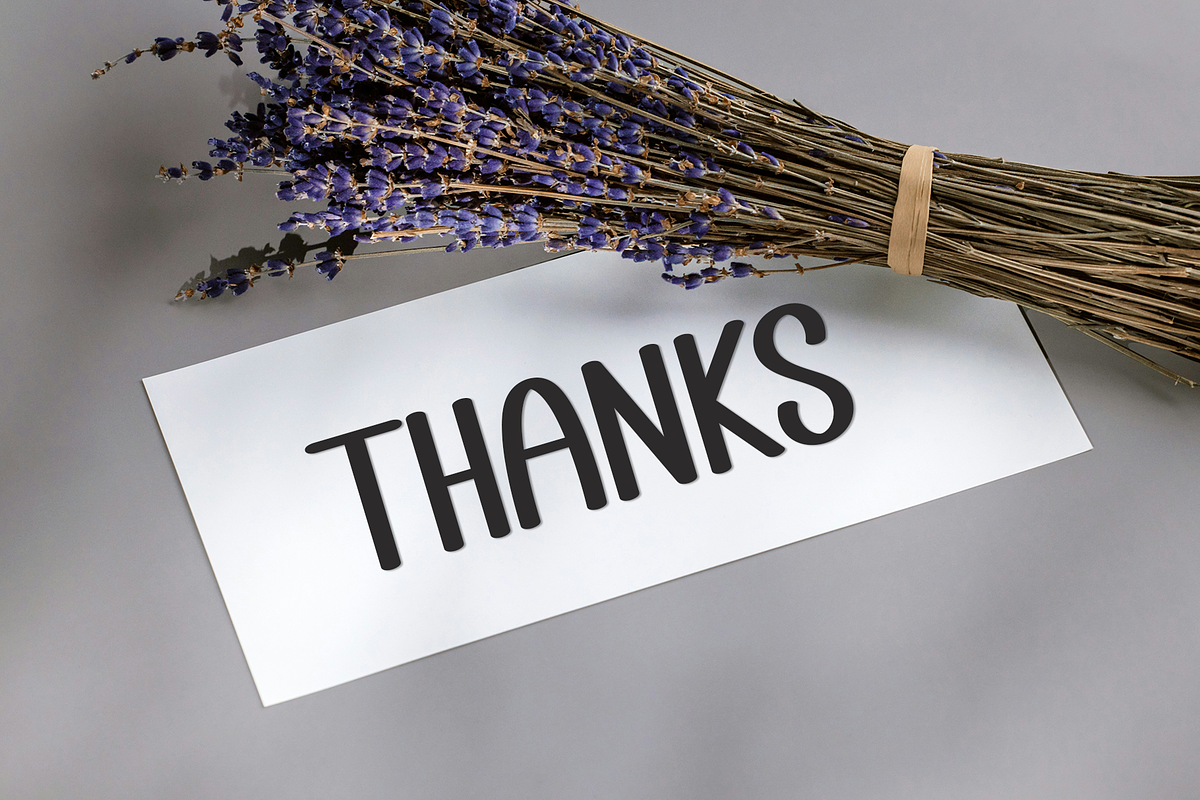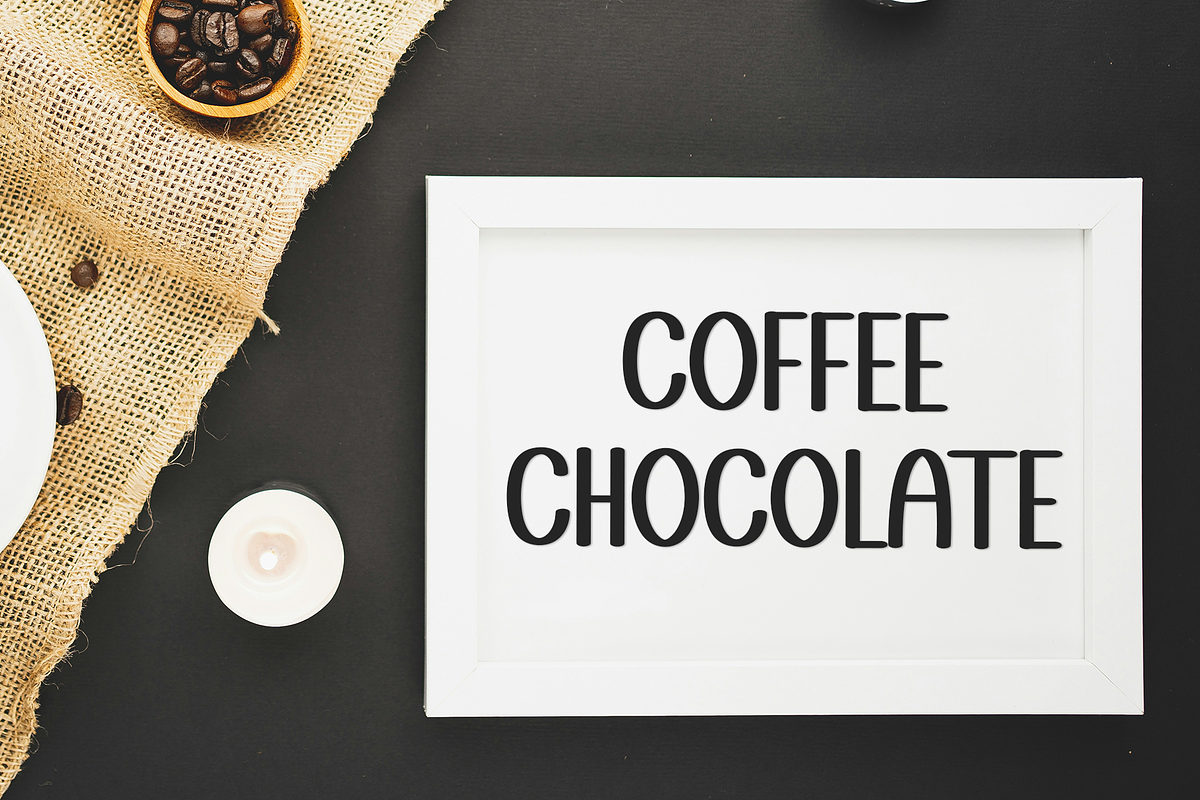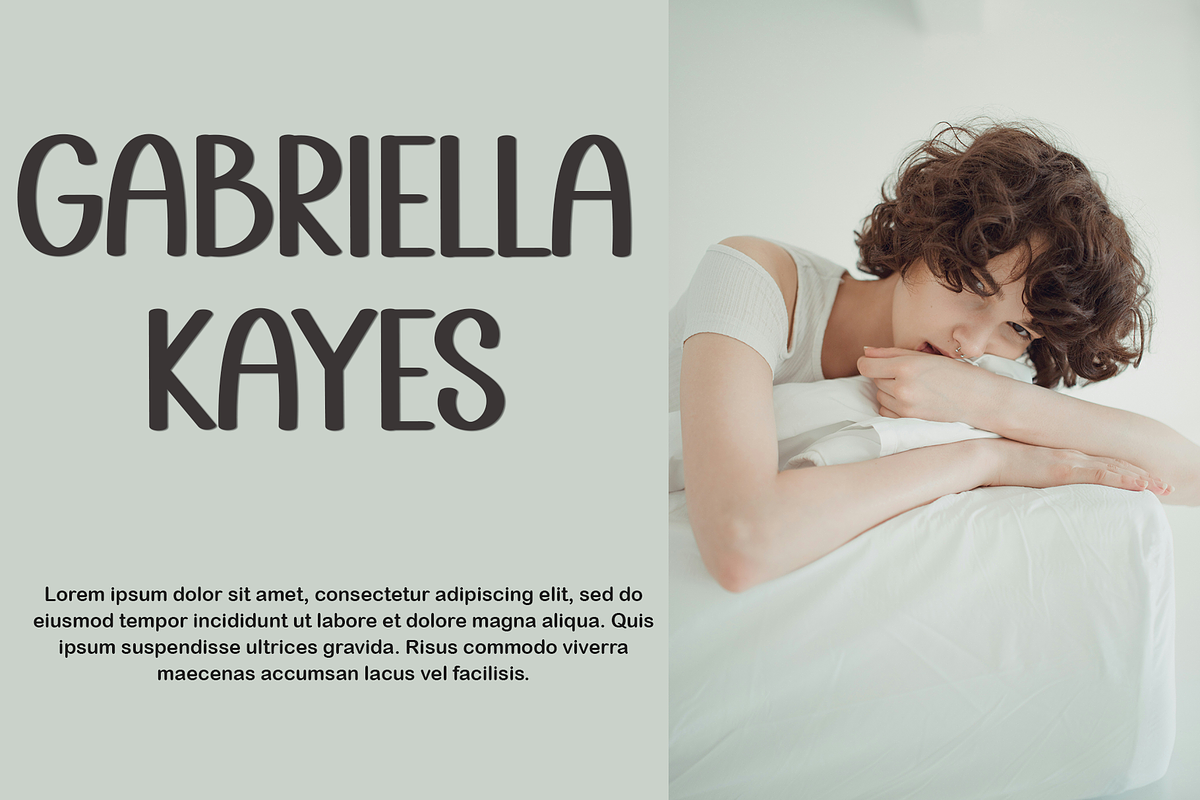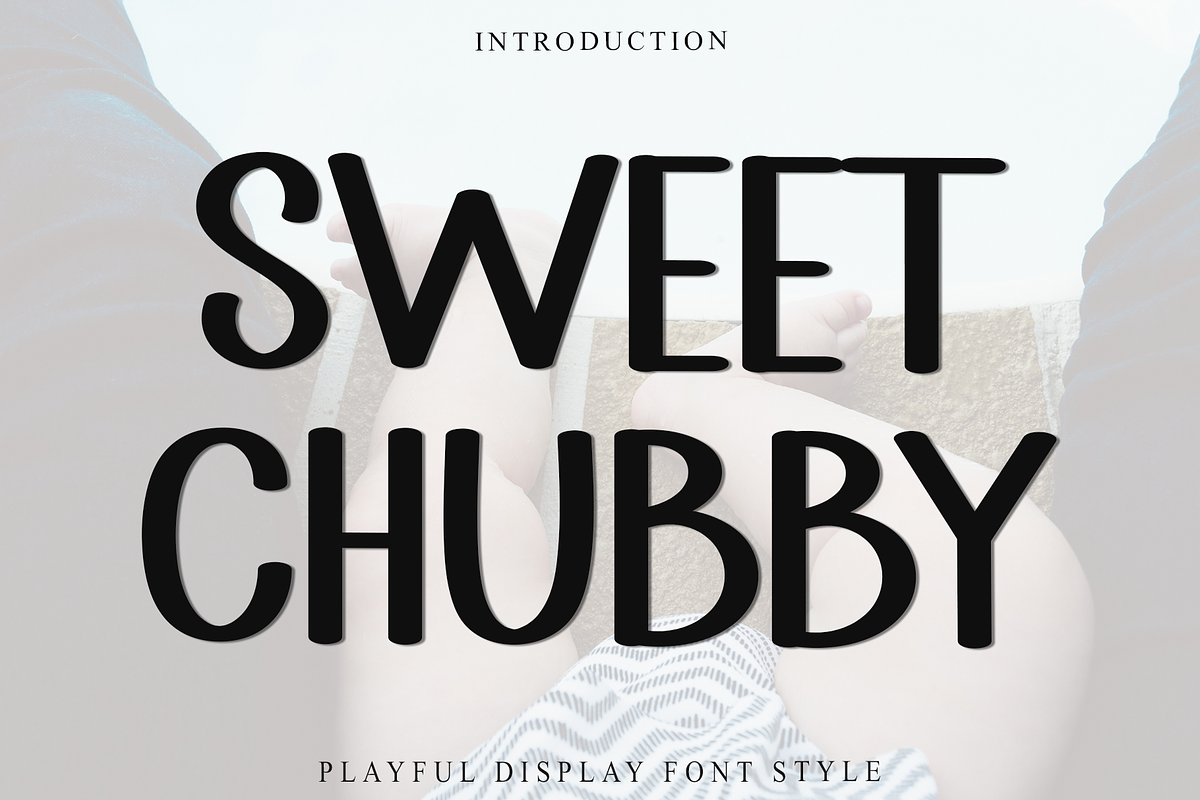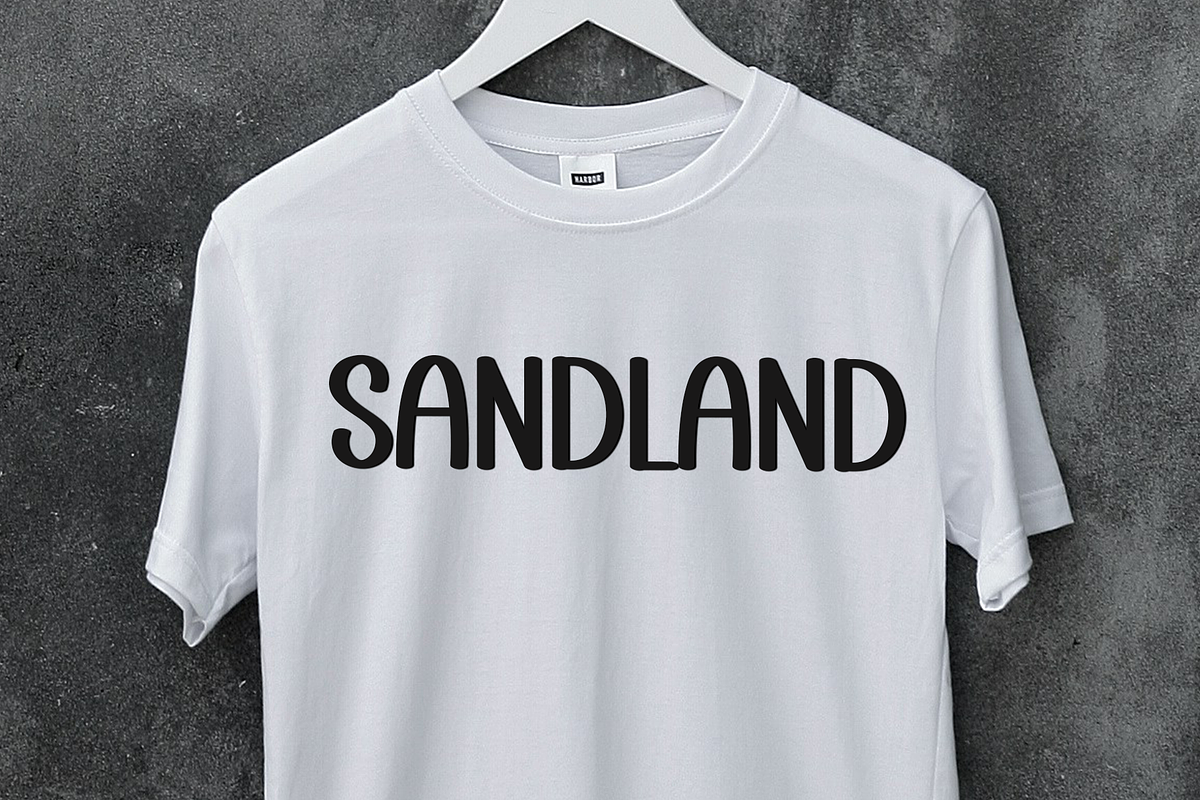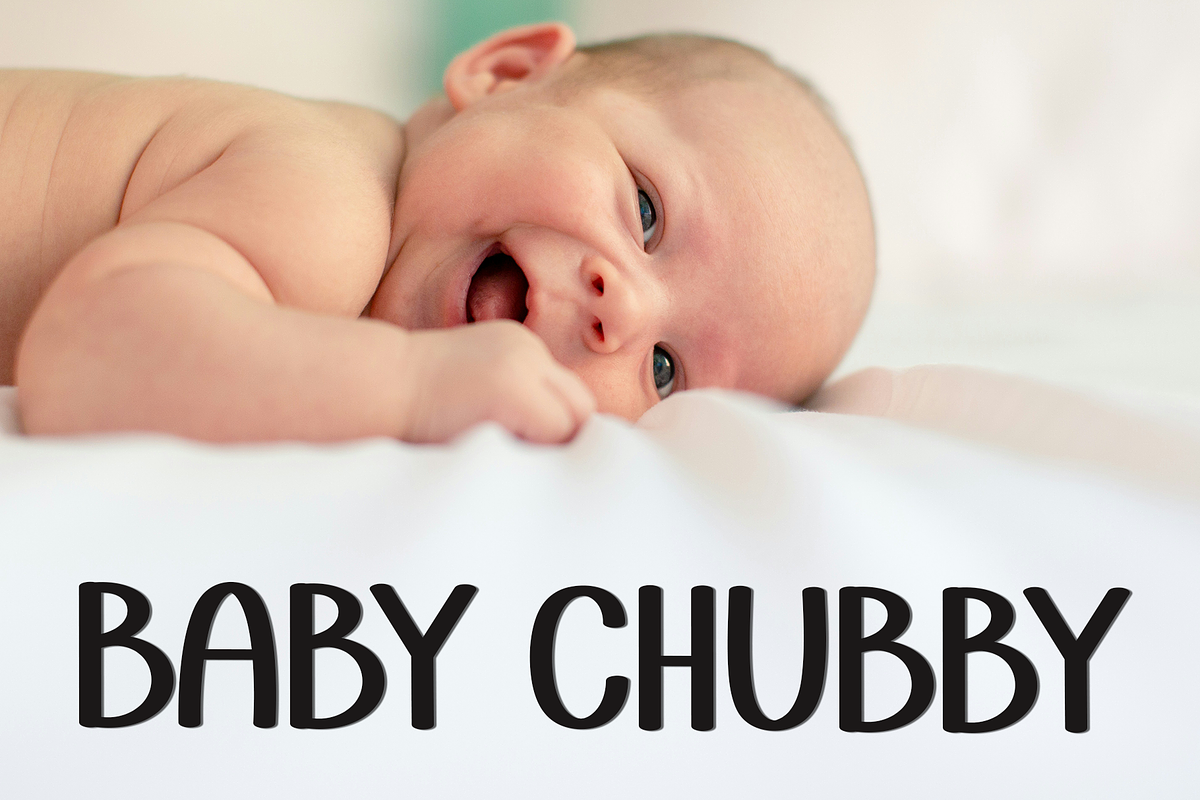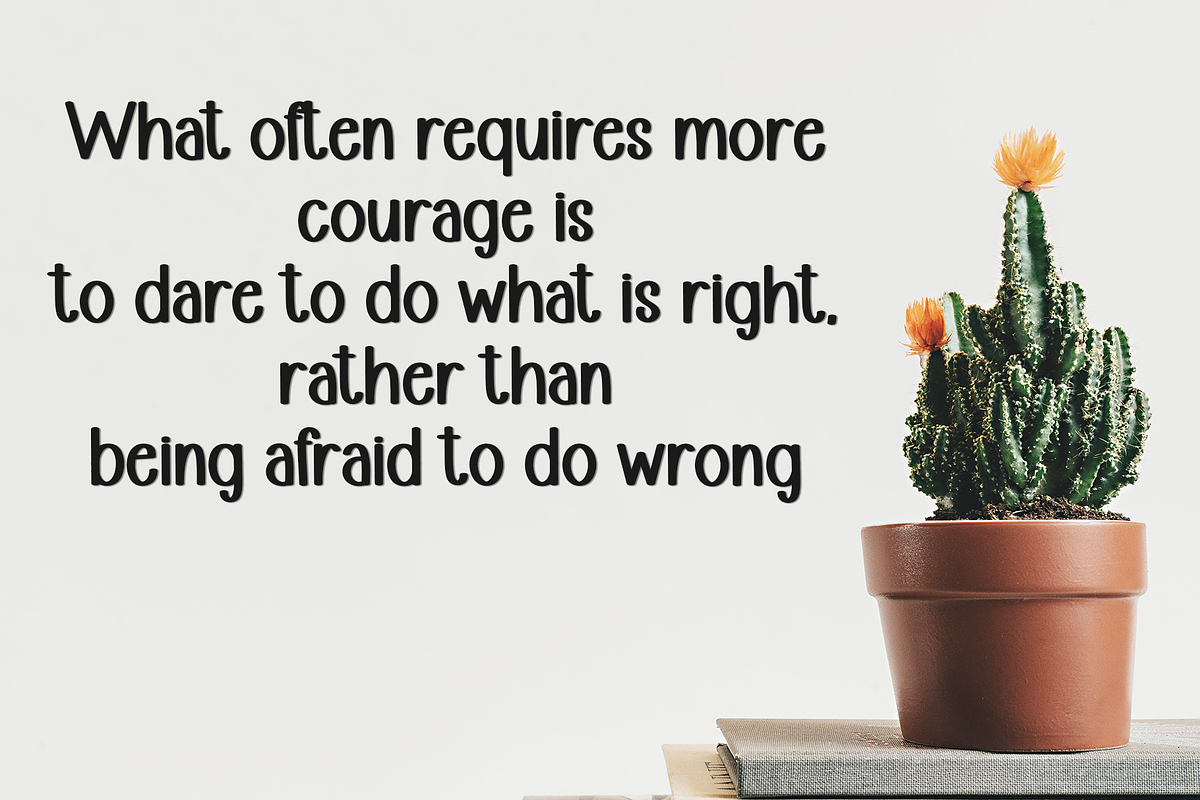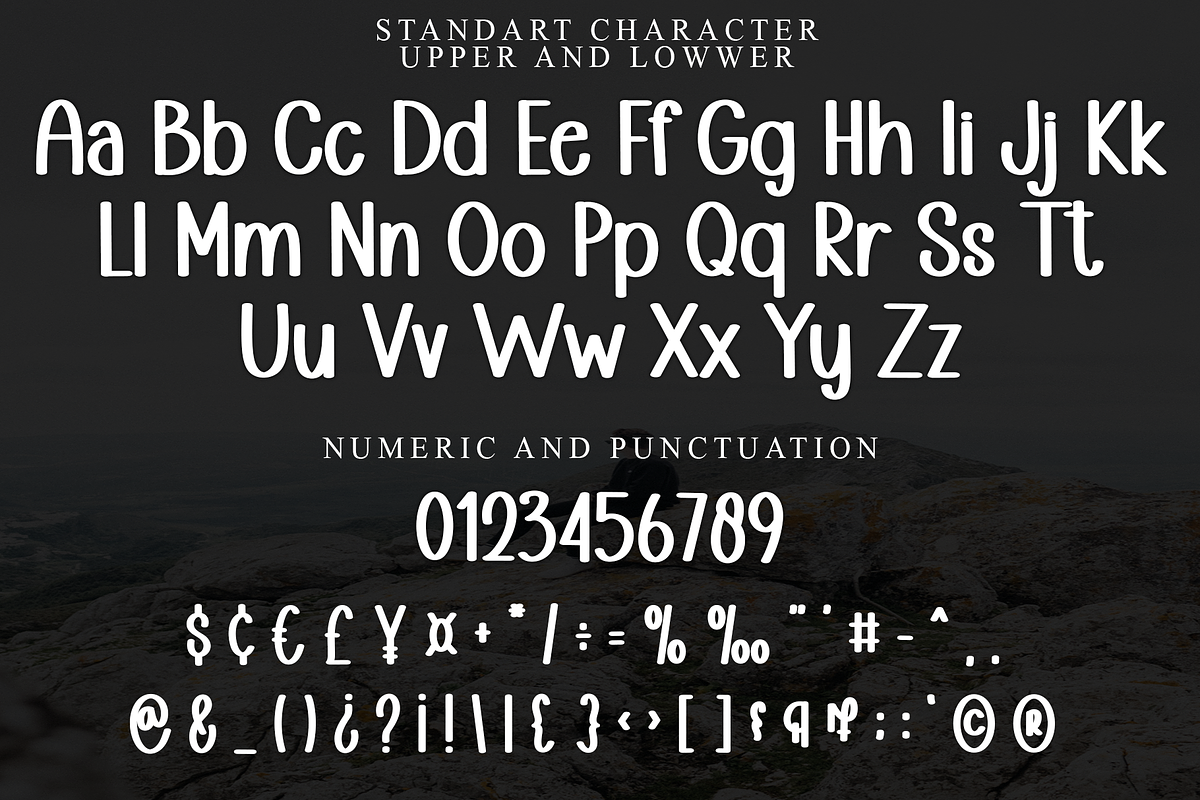
SWEET CHUBBY
SWEET CHUBBY is a beautiful and eye-catching font designed with a soft, unique touch. Its distinctive strokes give it a special character, making it meaningful and versatile for future use. With various characters, it’s perfect for design projects, crafts, and other creative works.